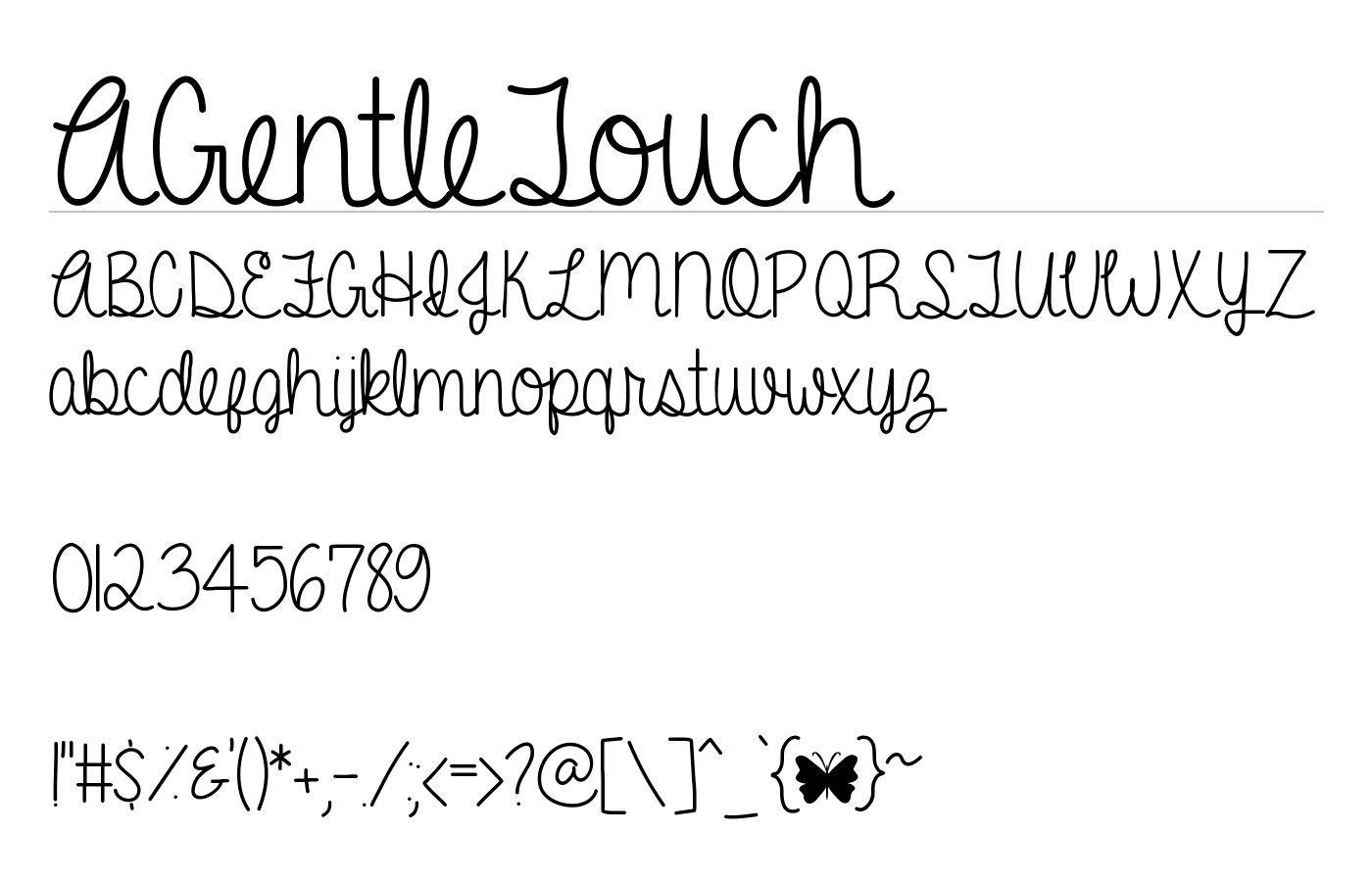
A Gentle Touch is a whimsical, handwritten script font characterized by its delicate, flowing lines and playful loops. Its light weight and tall, slender letterforms create an airy, friendly feel, making it ideal for creative projects that want to convey warmth and approachability, such as invitations, personal branding, and casual editorial designs. This font shines in settings where a personal, charming touch is desired, bringing a sense of intimacy and softness to any design.
A Gentle Touch Font
About A Gentle Touch Font